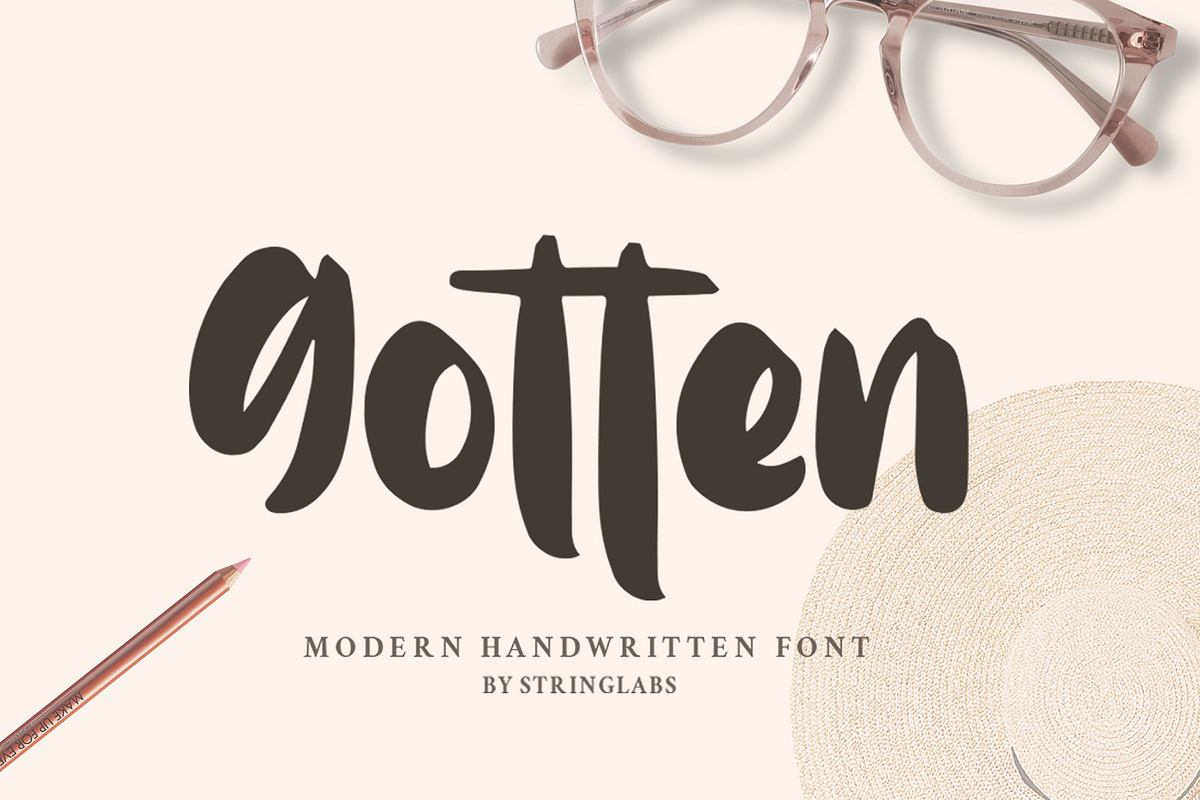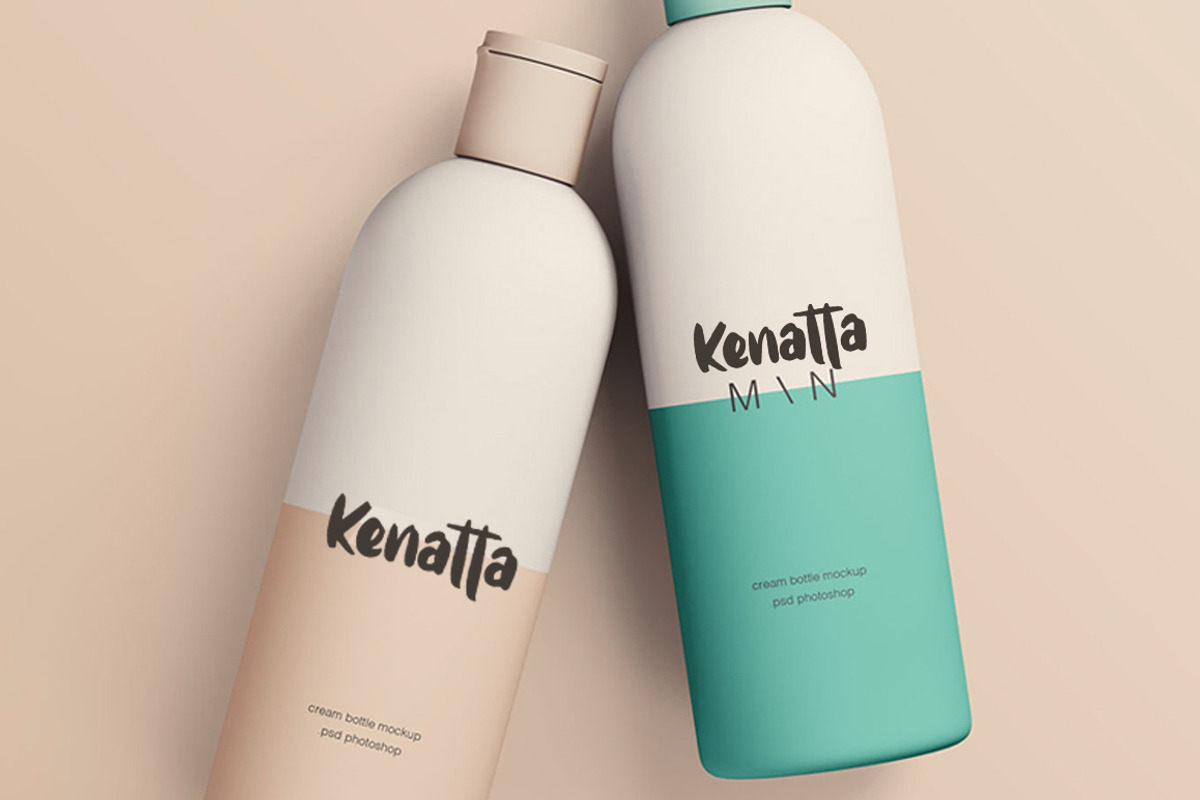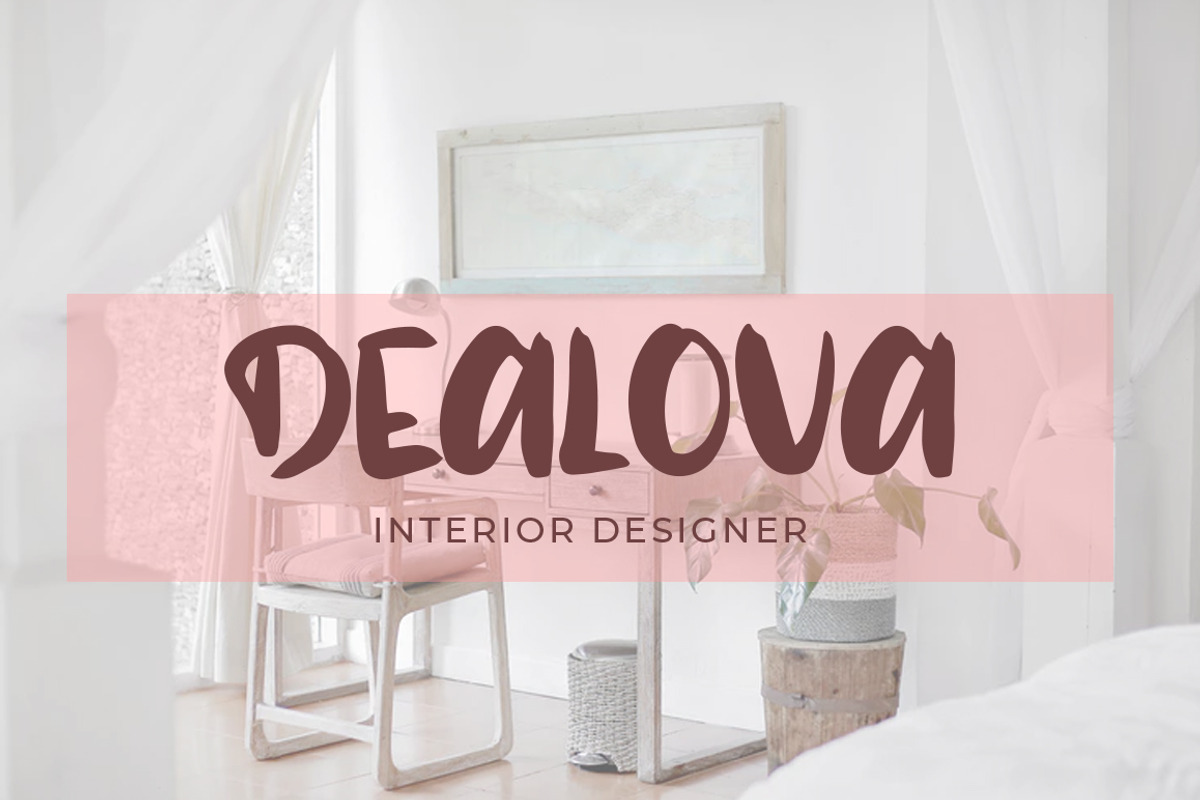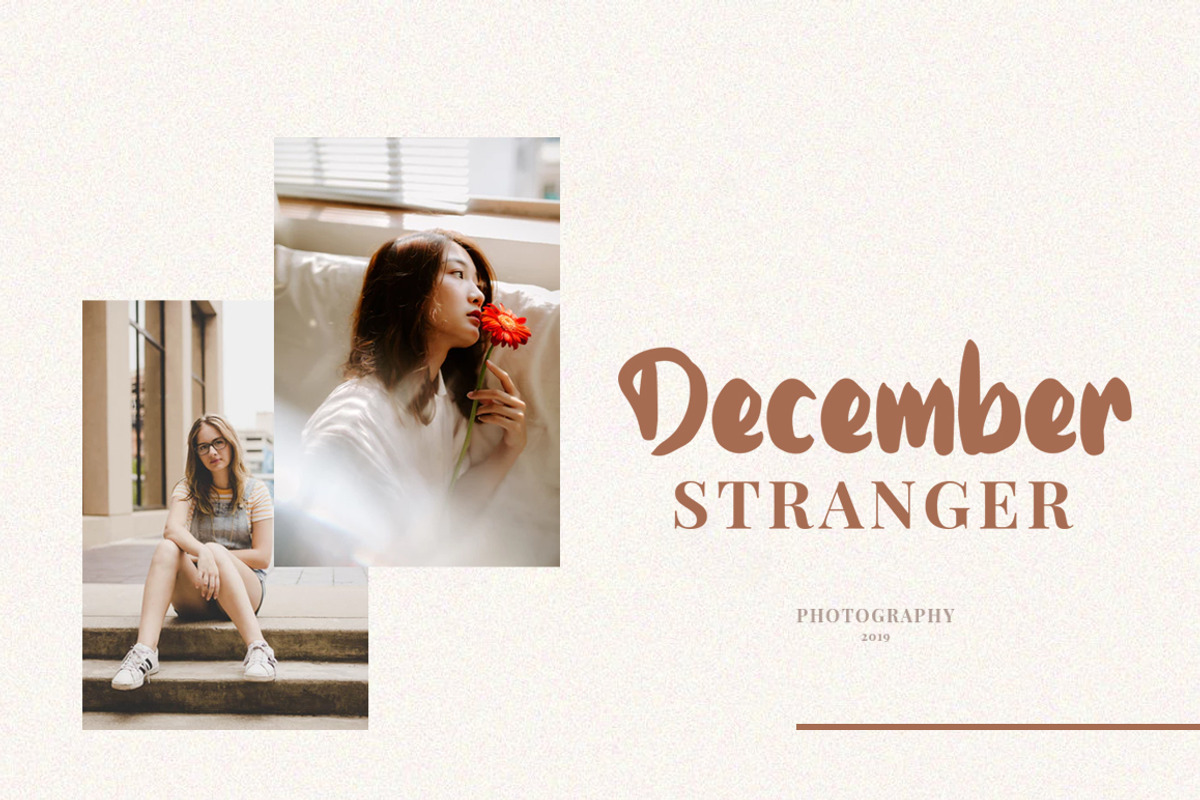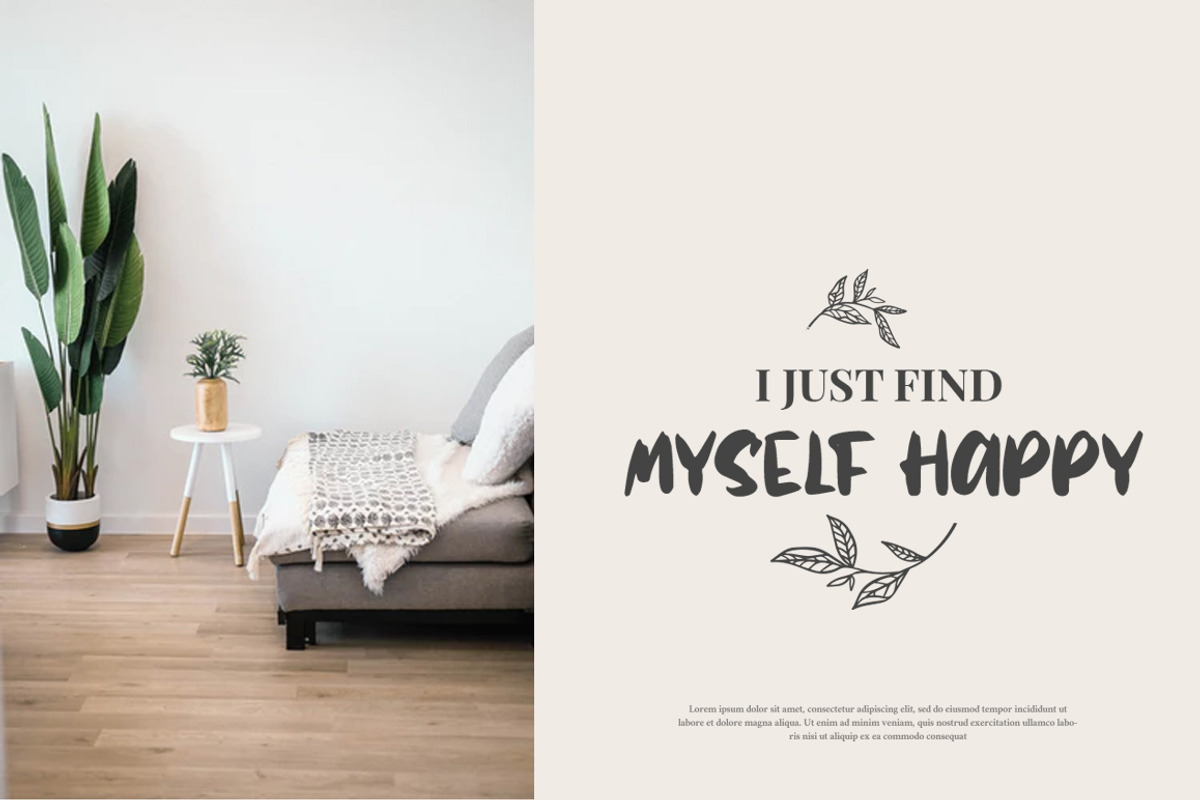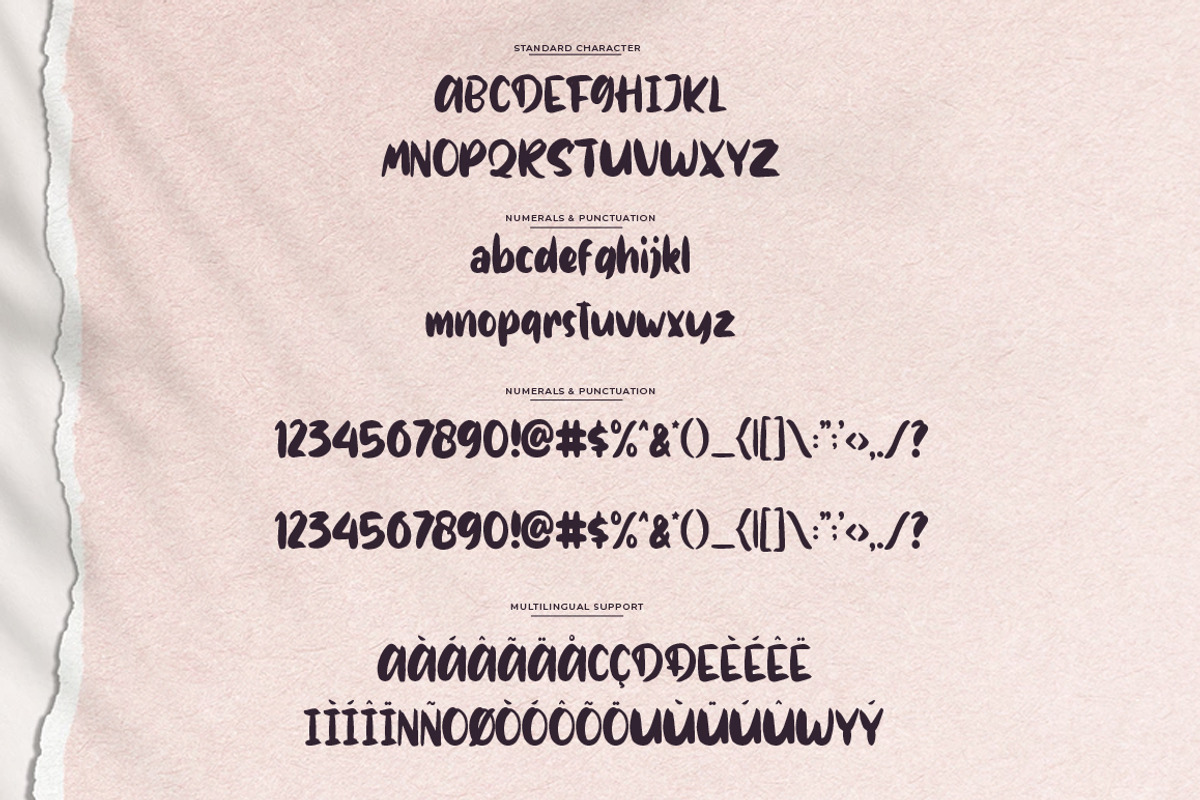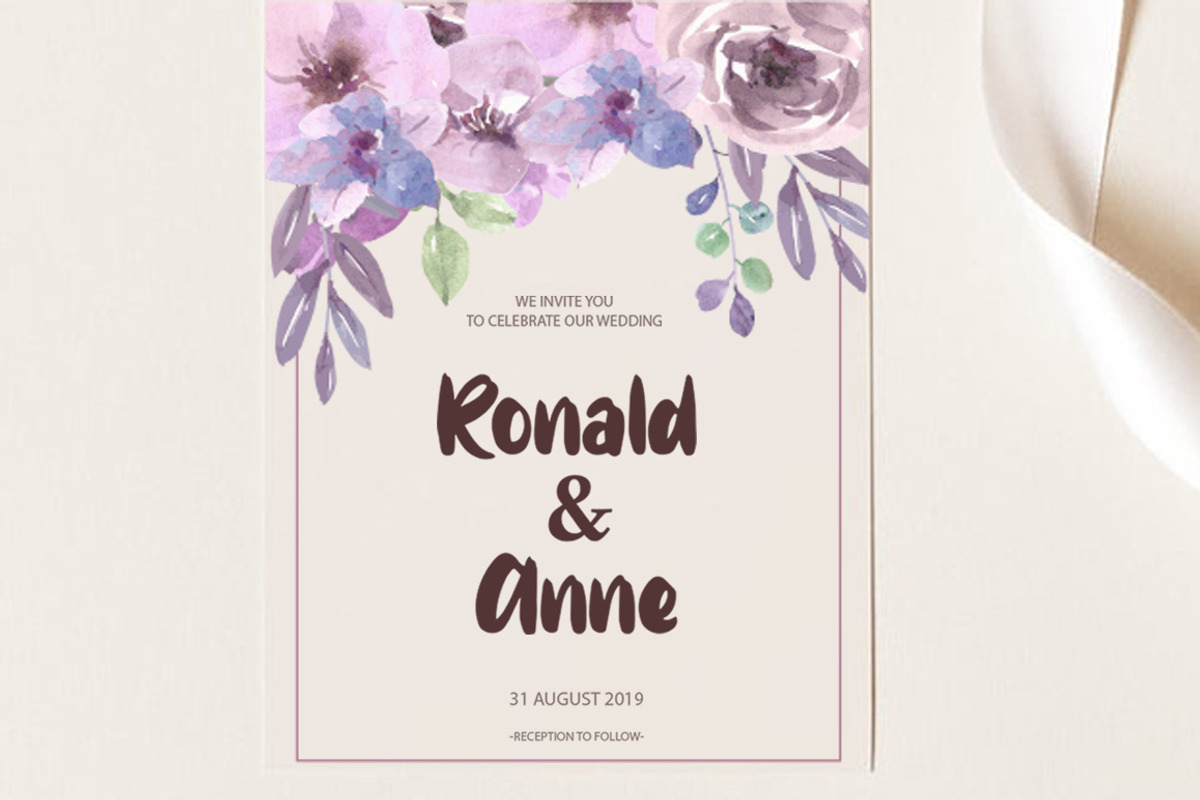
Gotten - Modern Handwritten Font
Introducing Gotten - Modern Handwritten Font
This Fonts can be used for any variety of purposes, such as: photography, Wedding, Ceremony, Packaging Products, Logo Type, Branding, T-Shirt Design, Website/Blog, Headline Magazine, Brochures and also can be used for personal purpose.
Uppercase & Lowercase letters
- This Fonts Template contains Modern, Elegant, creative, Professional and Unique Concept.
Why Gotten - Modern Handwritten Font is worth a look